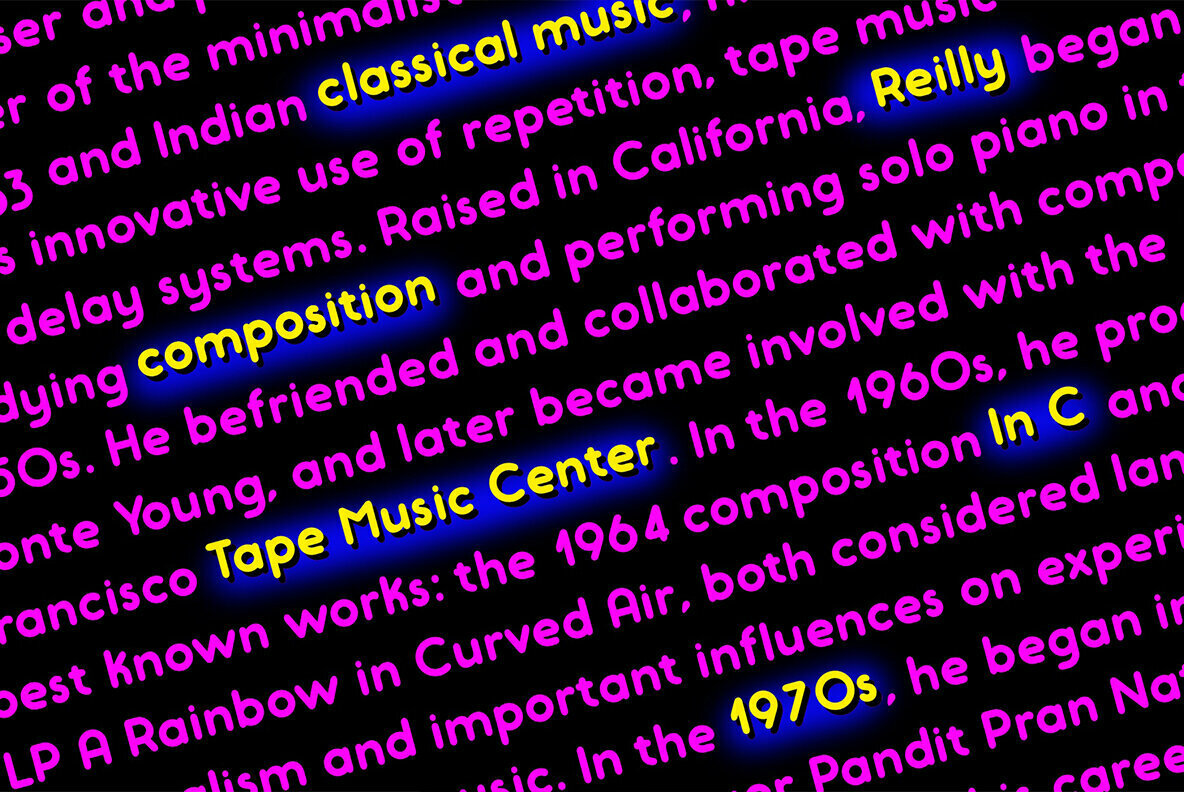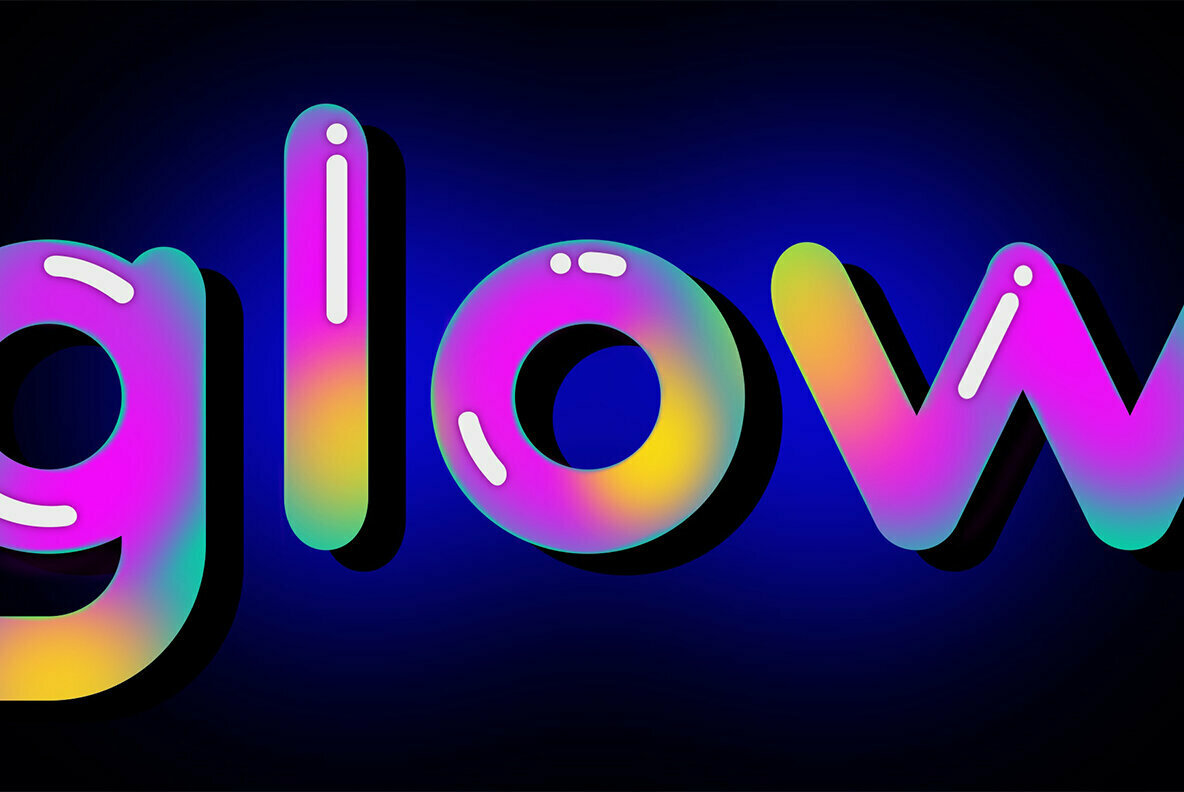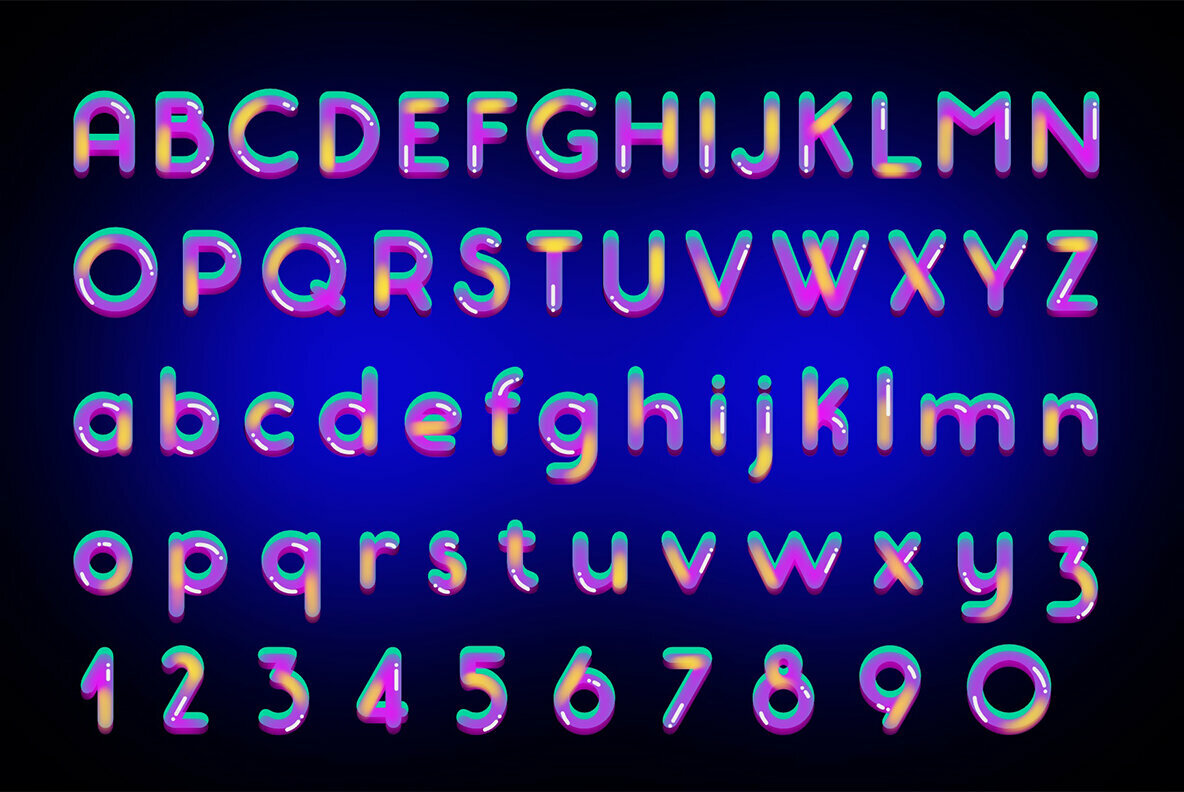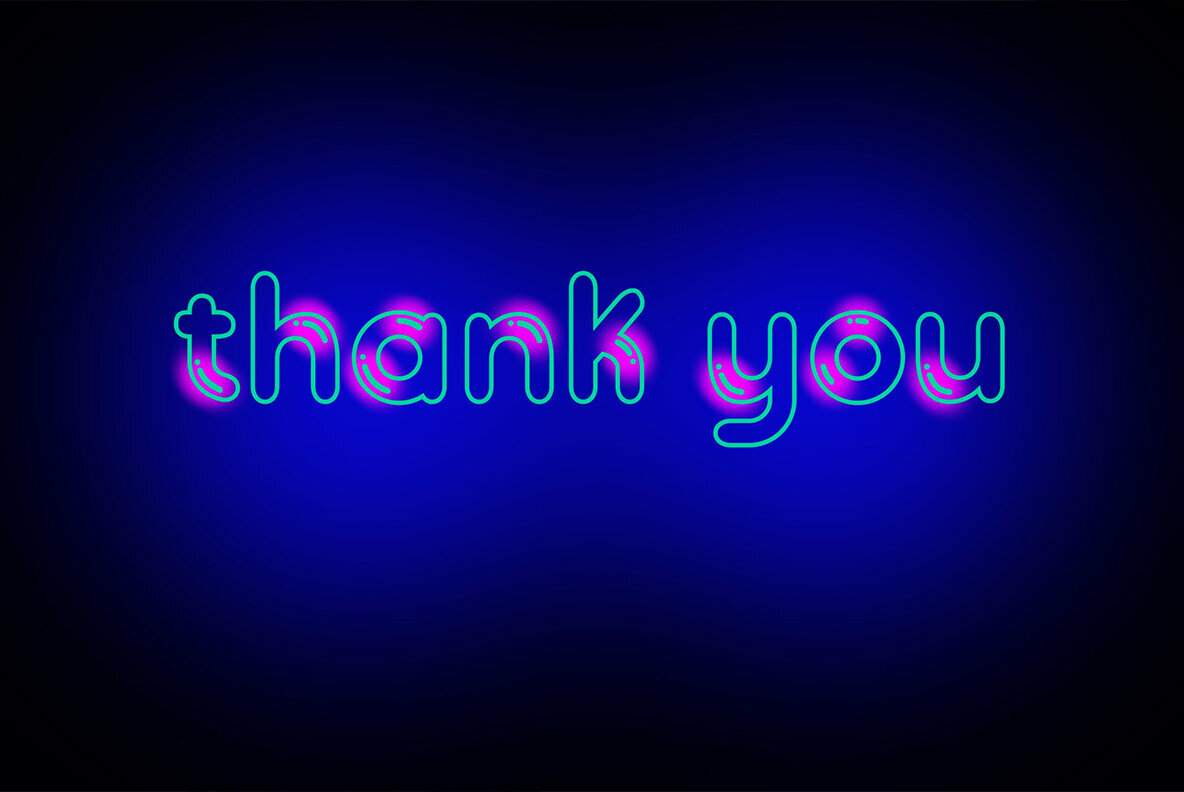
Riley Wow Font
Riley Wow Light
Riley Wow Regular
Riley Wow Glow
Riley typeface is rounded sans serif. It includes 3 font styles that can be used together to call glowing effect. The typeface supports all European languages based on Latin alphabet.